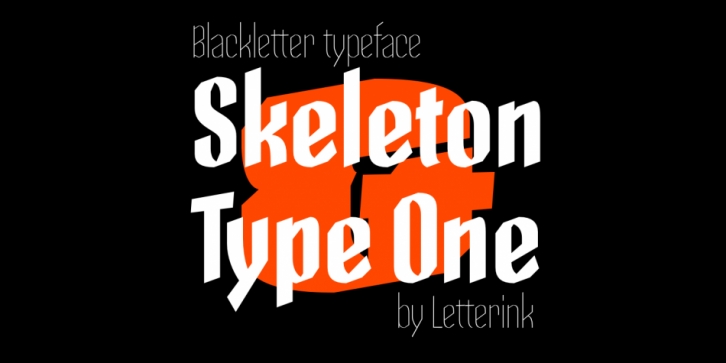
Skeleton Type One is a blackletter font family. This typeface has three styles and was published by Design Heroes.
Skeleton type one is fractured grotesque made with skeleton technique. More styles are coming soon.